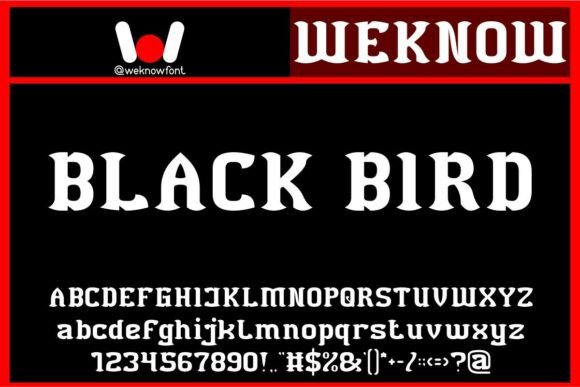
Unlocking the Enigmatic Allure of the Black Bird Font in Modern Design
In an era where visual identity is more crucial than ever, typography plays a pivotal role in shaping brand perception and creative expression. One font that has recently captured the attention of designers across industries is Black Bird. This modern gothic masterpiece draws from the rich blackletter tradition while infusing it with contemporary elements such as western serif influences, making it a standout choice for those seeking to blend vintage charm with bold modernity.
The Evolution of Black Bird: A Fusion of Tradition and Innovation
Black Bird is not just another typeface; it’s a carefully crafted bridge between the past and present. Rooted in the blackletter style, which originated in medieval Europe and was once the dominant form of written communication, this font reimagines classic calligraphy for today's digital landscape. The ornamental slabs and angular forms of Black Bird evoke a sense of authority and timelessness, yet its clean edges and adaptability make it surprisingly versatile for modern applications.
This unique duality positions Black Bird at the intersection of several design trends. As businesses and creators seek to differentiate themselves through aesthetics, fonts like Black Bird offer a way to stand out without compromising readability or professionalism. Its presence in both traditional and digital mediums highlights its relevance in an increasingly hybrid world of design.
Why Black Bird Stands Out in a Crowded Market
With countless fonts available online, the challenge lies in selecting one that truly reflects your brand’s voice and resonates with your audience. Black Bird distinguishes itself by offering an old-school, retro display twist that feels both nostalgic and fresh. This makes it particularly appealing to professionals working in industries where visual storytelling is key—such as apparel, music, film, gaming, and even corporate branding.
- Vintage Appeal: The font's blackletter roots give it an inherent elegance and gravitas that can elevate any project with a historical or cultural angle.
- Modern Adaptability: Unlike many traditional blackletter fonts, Black Bird avoids excessive ornamentation, making it suitable for use on websites, mobile apps, and social media platforms where legibility matters.
- Brand Versatility: Whether you're crafting a logo for a boutique clothing line or designing promotional materials for a new album release, Black Bird brings a consistent, high-impact aesthetic that aligns with a wide range of brand identities.
Applications Across Industries: From Logos to Social Media
One of the most compelling aspects of Black Bird is its broad applicability. It serves as an ideal foundation for logos and logotypes, where its strong character and distinctive silhouette can create immediate recognition. For entrepreneurs launching a new venture, especially in niche markets like artisanal products or independent publishing, choosing a font like Black Bird can help establish a memorable and authentic brand image.
In the world of entertainment and media, Black Bird has found a home in book covers, comics, and cartoons. Its dramatic flair and typographic depth allow for expressive layouts that catch the eye and convey mood effectively. For example, a fantasy novel cover might leverage the font’s ornate qualities to suggest a mysterious, ancient world, while a comic book could use it to highlight a title in a visually dynamic way.
Moreover, in the realm of digital content creation, Black Bird proves its worth on platforms like YouTube and Instagram. These platforms are saturated with content, so having a unique visual element—like a striking headline in Black Bird—can help creators break through the noise and engage their audience more effectively. Marketers, too, are taking notice of how such fonts can be used to craft compelling ad campaigns and website headers that command attention.
Meeting Changing Creative Needs and Expectations
As the creative industry evolves, so do the expectations of audiences and clients. Today’s consumers demand authenticity and originality, traits that Black Bird embodies effortlessly. Freelancers and agencies alike are responding to these shifting preferences by incorporating fonts that tell a story and reflect deeper brand values. Black Bird offers precisely that—an opportunity to connect with audiences through a visual language that is both powerful and evocative.
Designers also appreciate how Black Bird fits into current workflows. In a world where speed and efficiency are paramount, the font strikes a balance between artistic detail and usability. It works well in vector-based software like Adobe Illustrator and seamlessly integrates into web development environments using CSS and responsive design techniques. This adaptability ensures that it remains a practical tool for professionals who must juggle creativity with technical constraints.